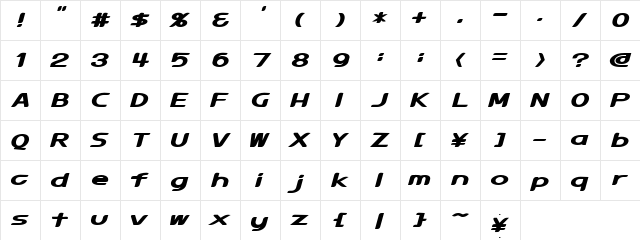
D3 Snowboardism Regular
Design Context for D3 Snowboardism Typeface
D3 Snowboardism is a composed and adaptable typeface that performs quietly and consistently across a wide range of design contexts.